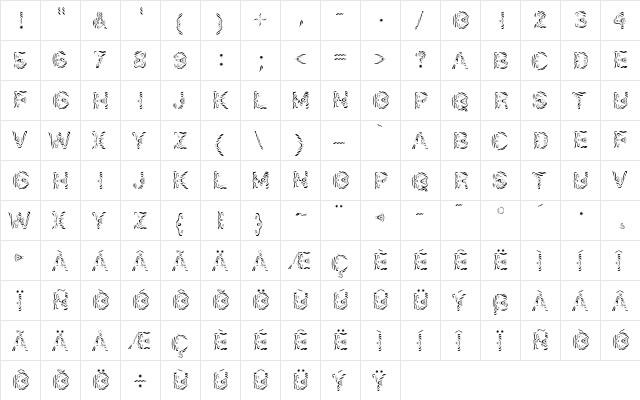
LinotypeSilver Regular
Design Context for LinotypeSilver Typeface
LinotypeSilver is a composed and adaptable typeface that performs quietly and consistently across a wide range of design contexts.
Pro Tip: Pair LinotypeSilver with a font of contrasting weight or personality to build a more expressive typographic hierarchy.